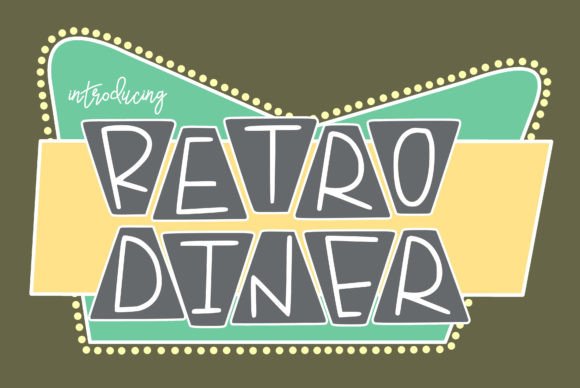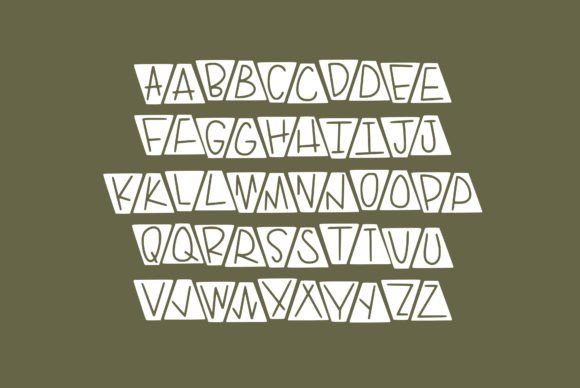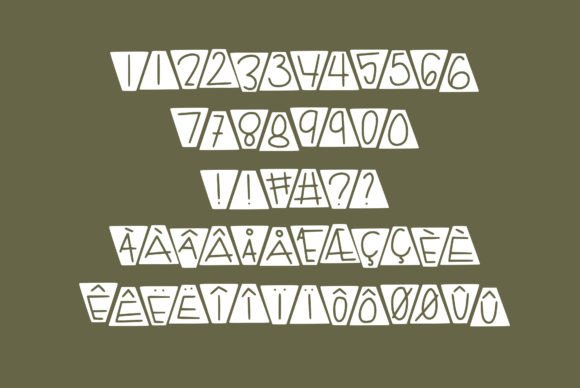
Retro Diner Font: A Playful Vintage Display Font for Cricut & DIY
About the Retro Diner Font
Introducing the Retro Diner Font, a beautifully crafted typeface designed to elevate your creative projects. Introducing Retro Diner, a playful, nostalgic font that brings the classic diner vibes of the 1950s to life. With its quirky, hand-drawn letter shapes, Retro Diner adds a touch of vintage fun to any project. Perfect for logos, menus, posters, and invitations that need a bold, retro-inspired touch, this font is versatile and eye-catching. It also comes with numbers and a full range of punctuation, ensuring it’s as functional as it is stylish.
Retro Diner excels in headlines, short text blocks on posters and packaging, and branding elements requiring a vintage feel. Its playful nature makes it ideal for projects targeting a younger demographic or those with a fun, nostalgic theme. However, its quirky, hand-drawn style isn’t suited to body text or long paragraphs; readability suffers at smaller sizes.
For optimal pairings, consider pairing Retro Diner with a clean sans-serif like Open Sans for a balanced contrast, or a more geometric sans-serif such as Futura for a modern yet retro feel. A subtle serif like Merriweather can add a touch of sophistication, complementing the font’s vintage charm without overwhelming it.
The overall personality is bold, playful, and undeniably retro, making it a strong choice for brands aiming for a vintage-inspired, fun, and approachable image. Avoid using it where a polished, sophisticated, or highly legible typeface is required.
Retro Diner Font Usage Examples
Retro Diner Font Example